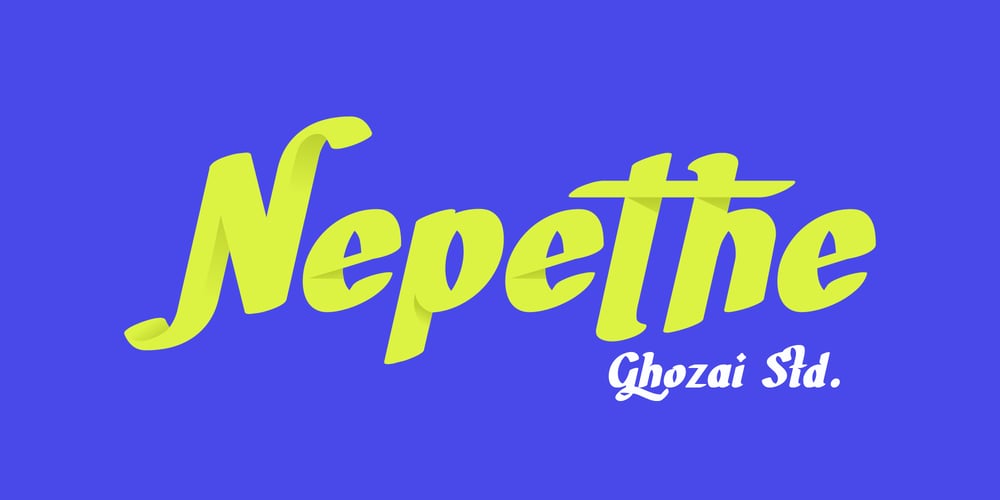
Nepethe Font Family was designed by Manzur Ghozaali and published by Ghozai Studio. Nepethe contains 4 styles and family package options. Nepethe is a display font inspired by a flat-brushed typeface and a semi-script style, designed to evoke a warm and human touch. It is available in four different styles and includes numerous stylistic alternates and ligatures, providing more options and personality to suit your needs.This versatile font works well for a range of applications, from street art like graffiti to elegant designs for wedding invitations. Nepethe is ideal for use in logos, branding, titles, posters, zines, print-on-demand projects, invitations, and any other context that requires a distinctive and impactful design.